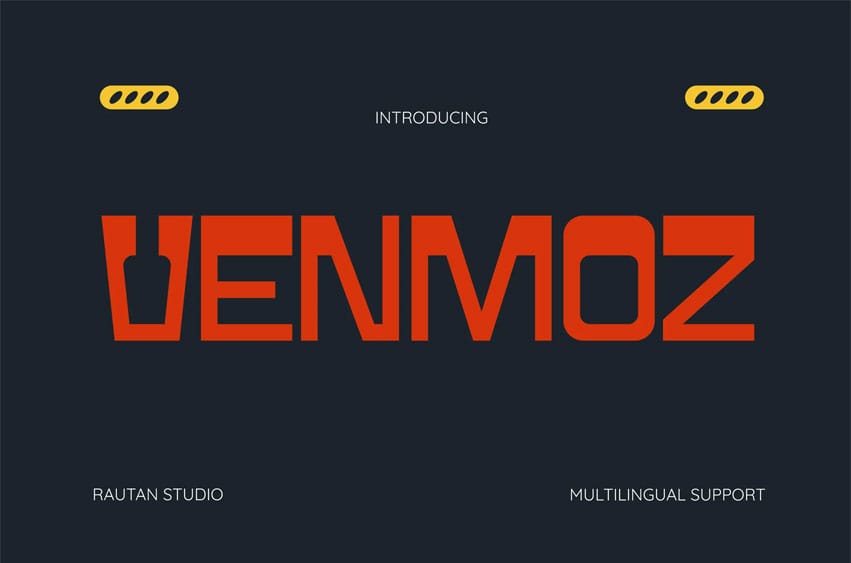
Venmoz Font is a bold geometric retro display typeface with compact shapes, sharp terminals, and strong block letterforms inspired by classic arcade and futuristic design. Its structured geometry creates a clean, energetic, and tech-inspired look that stands out instantly. The balanced proportions keep headlines clear while giving designs a distinctive retro-digital personality.
Venmoz works well for branding, posters, gaming graphics, social media, packaging, and logo design, especially when a project needs a strong visual statement.
Venmoz is designed to capture attention quickly in bold headline designs. The compact geometric structure makes it perfect for posters, branding, gaming visuals, and editorial layouts. Its retro-futuristic style helps designers create eye-catching titles, logos, and promotional graphics that feel nostalgic yet modern. For projects that need a strong visual presence, Venmoz delivers clear impact.
Key Features :
- Bold Geometric Style Strong block letterforms with compact proportions for clear and powerful headlines.
- Retro Futuristic Look Inspired by classic arcade and digital aesthetics.
- High-Impact Display Perfect for titles, logos, posters, and promotional graphics.
- Versatile Usage Great for branding, gaming visuals, social media, packaging, and editorial design.
- Clean & Readable Shapes Balanced geometry keeps text clear while maintaining a bold personality.